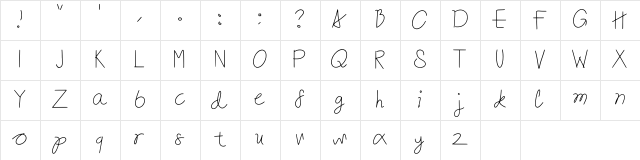
Bead Regular
Design Context for Bead Typeface
Bead is a composed and adaptable typeface that performs quietly and consistently across a wide range of design contexts.